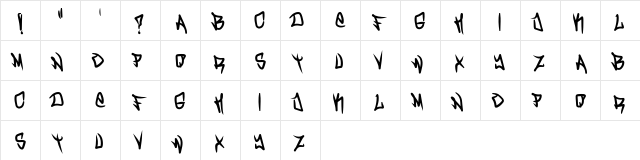
Turnt Up Bold Free Font
Turnt Up Bold
Foundry: Font Monger
Designer: Chris Vile
Design Context for Turnt Up
Turnt Up is a composed and adaptable typeface that performs quietly and consistently across a wide range of design contexts. Its bold stroke weight gives it real presence on the page.